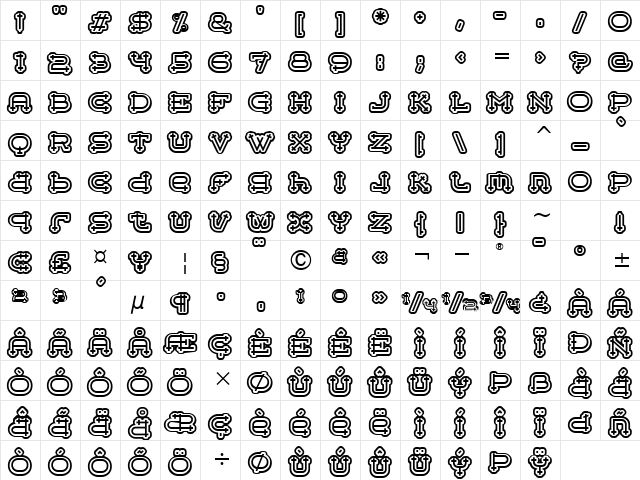
BelterMegaOutlineITC Roman Font Preview
BelterMegaOutlineITC Roman
Design Context for BelterMegaOutlineITC Typeface
BelterMegaOutlineITC brings ornamental detail and strong personality to headlines and identities, where visual impact matters more than quiet functionality.
Font Pairing: Pair with a clean neutral sans-serif for body copy to let BelterMegaOutlineITC's character lead without overwhelming the composition.
Pro Tip: Treat BelterMegaOutlineITC as the centrepiece of your typographic hierarchy. One strong heading set in a decorative face can carry an entire layout.